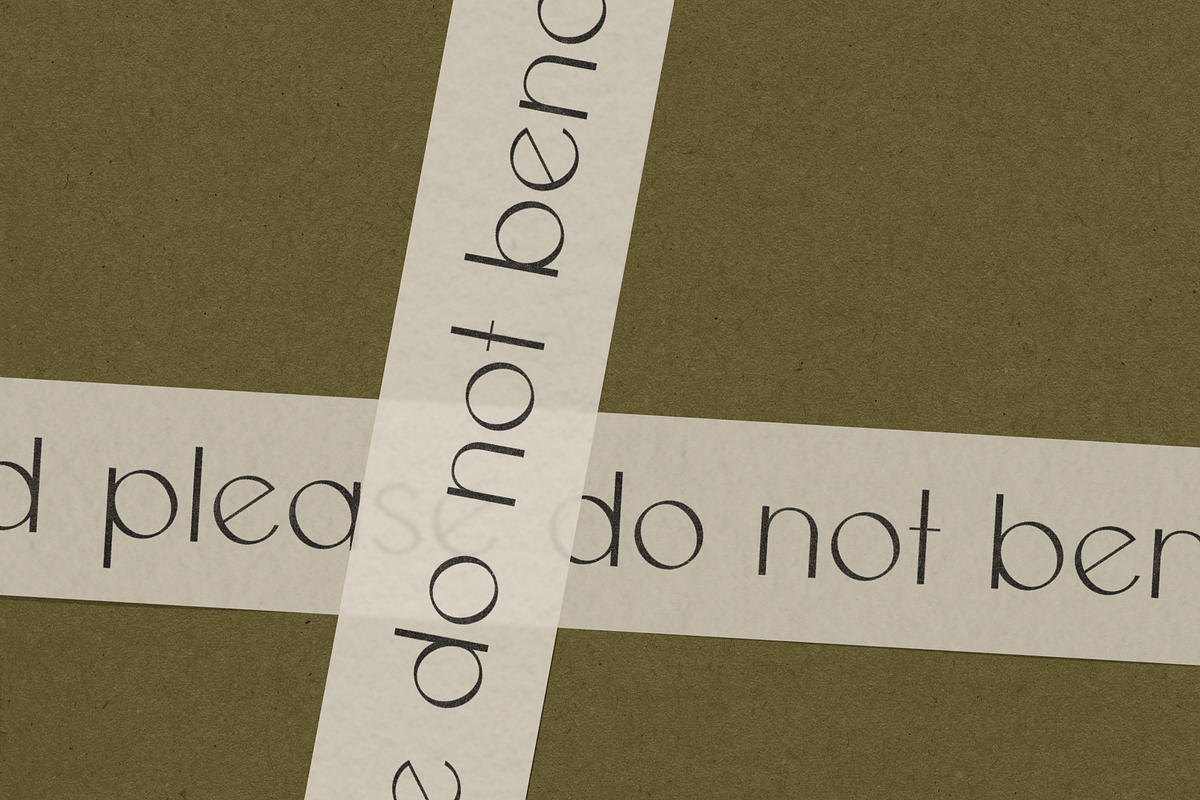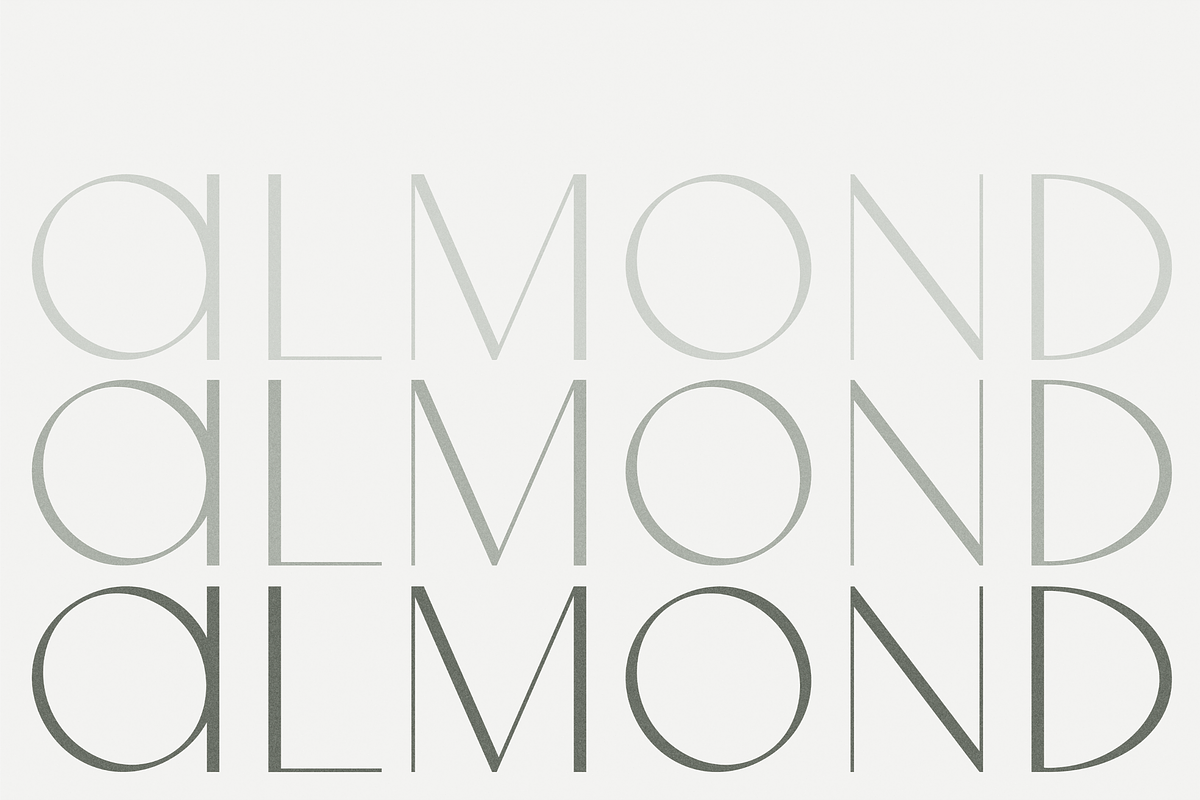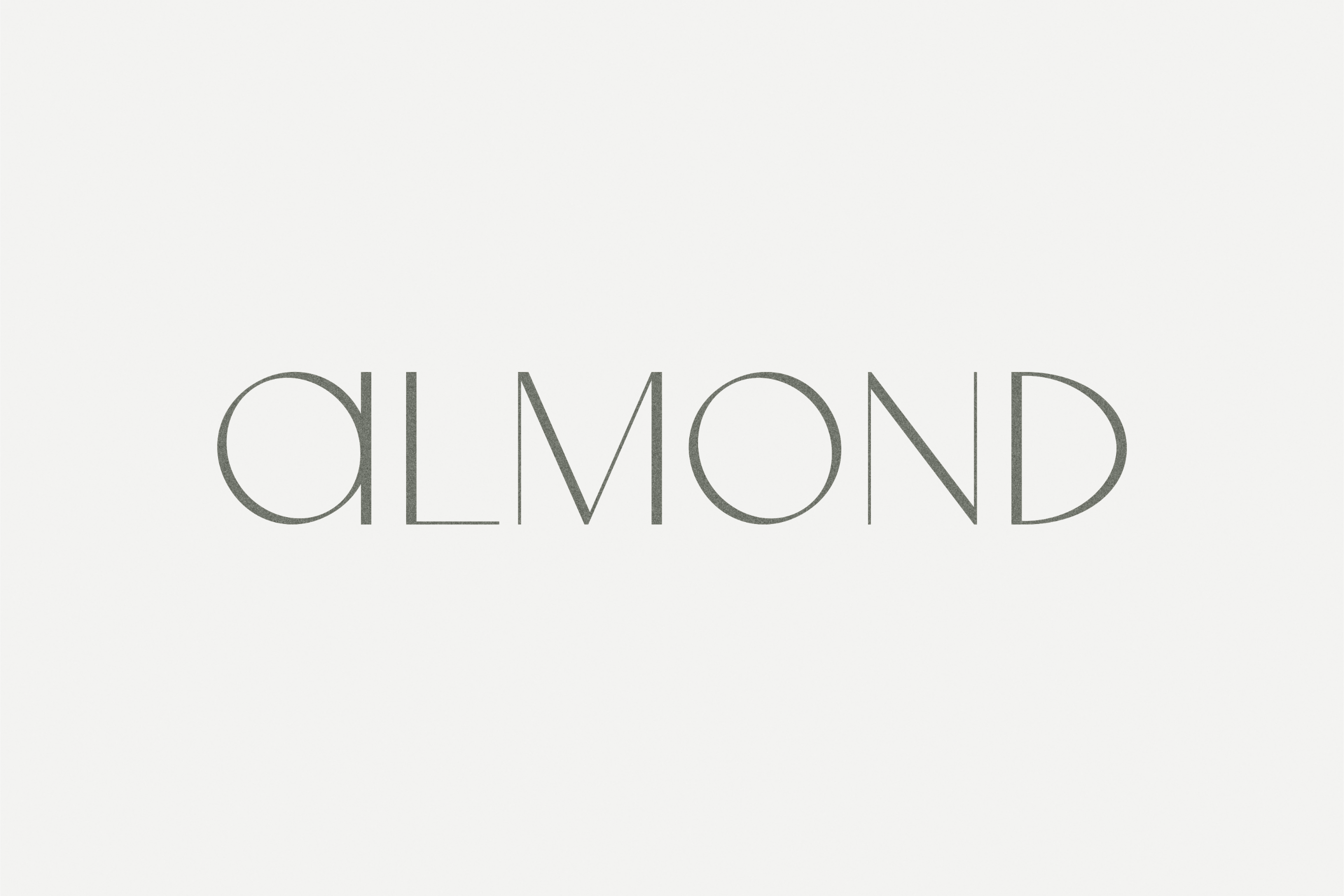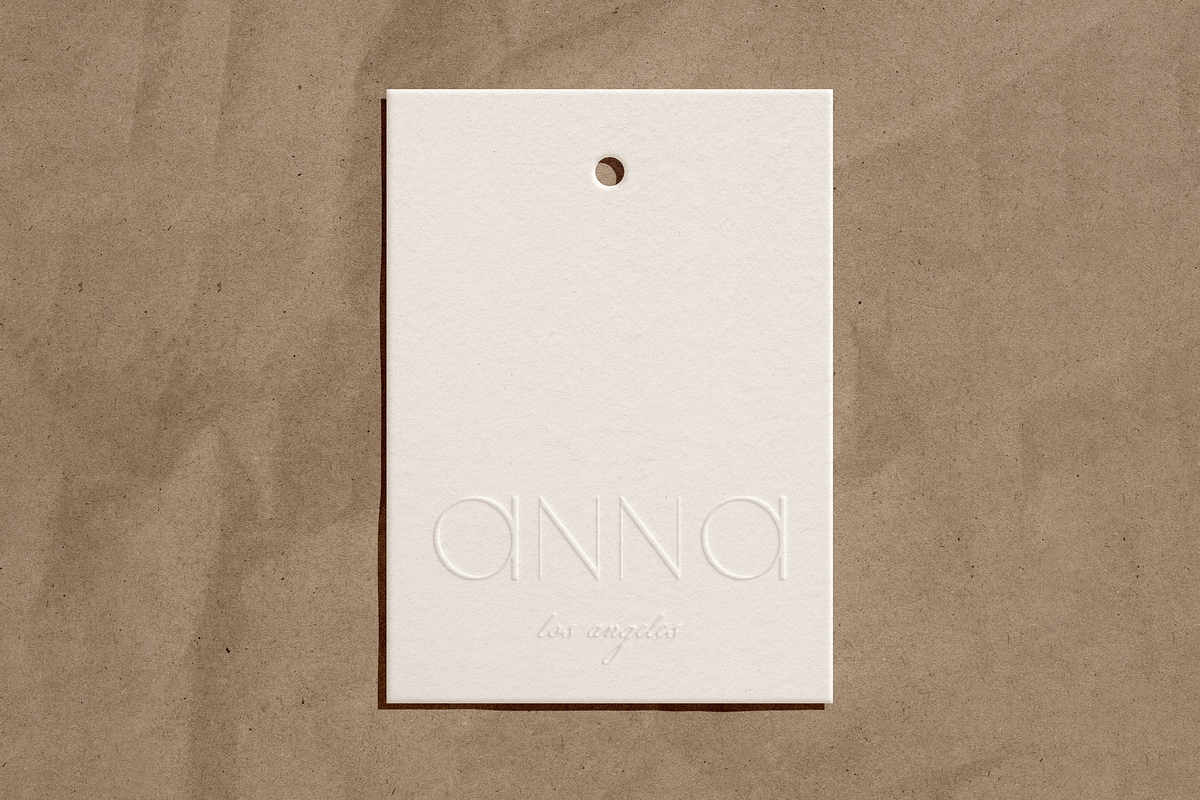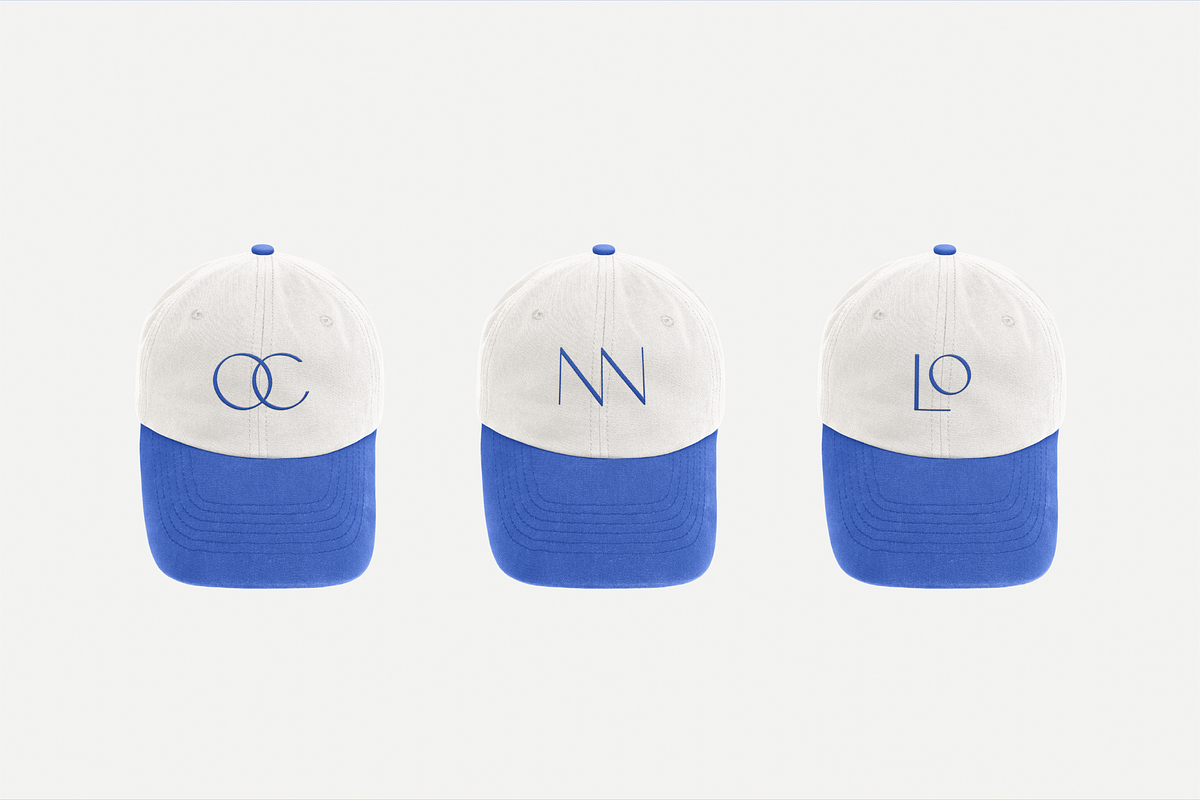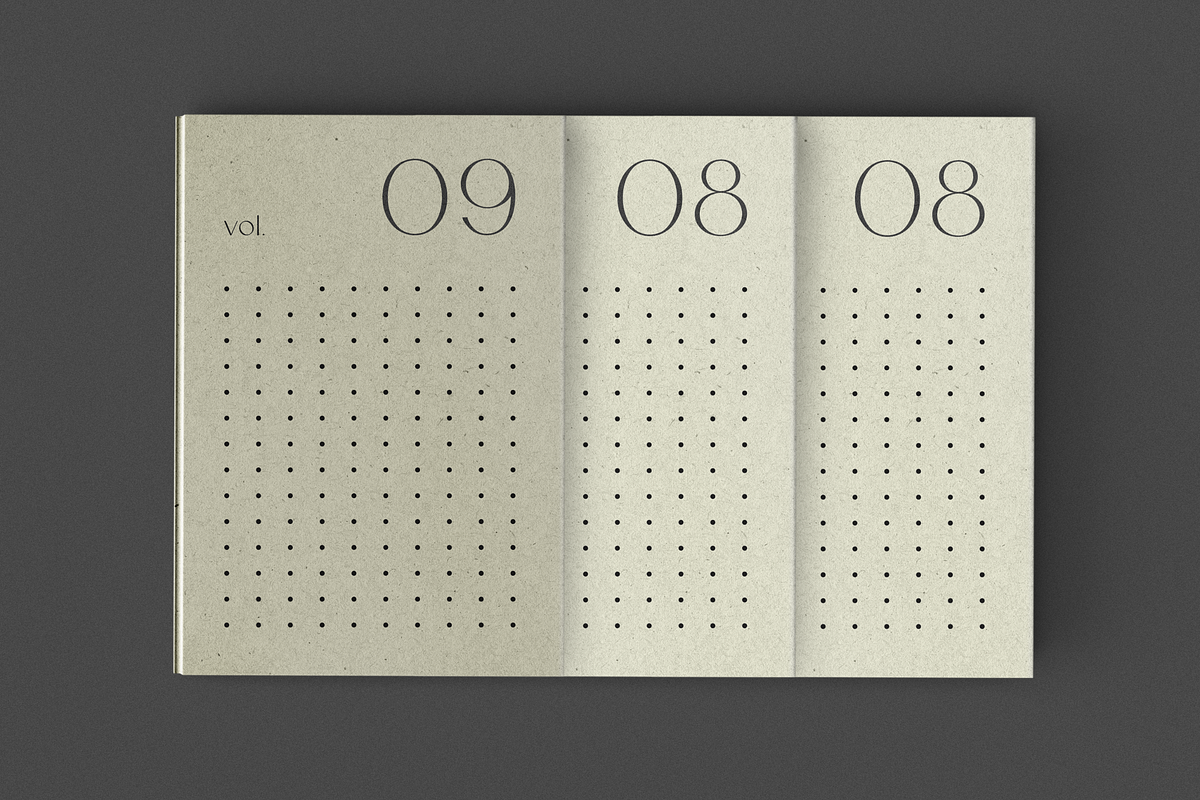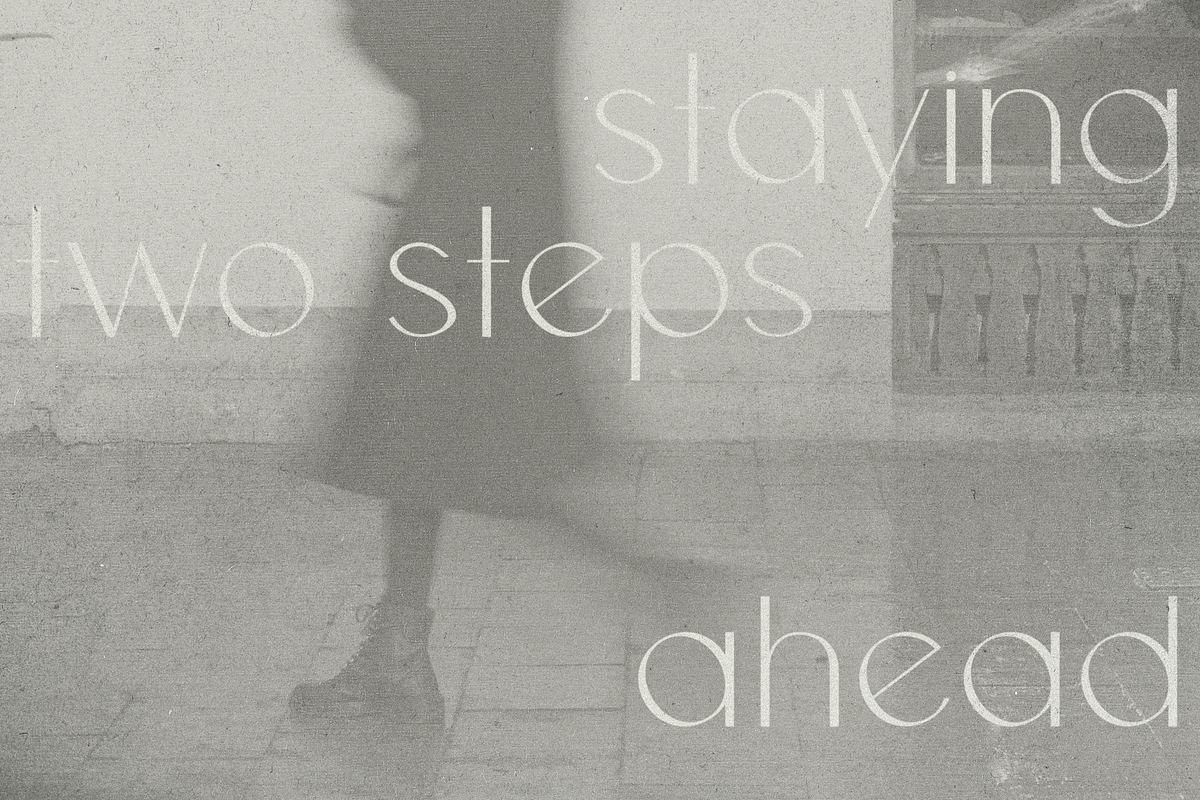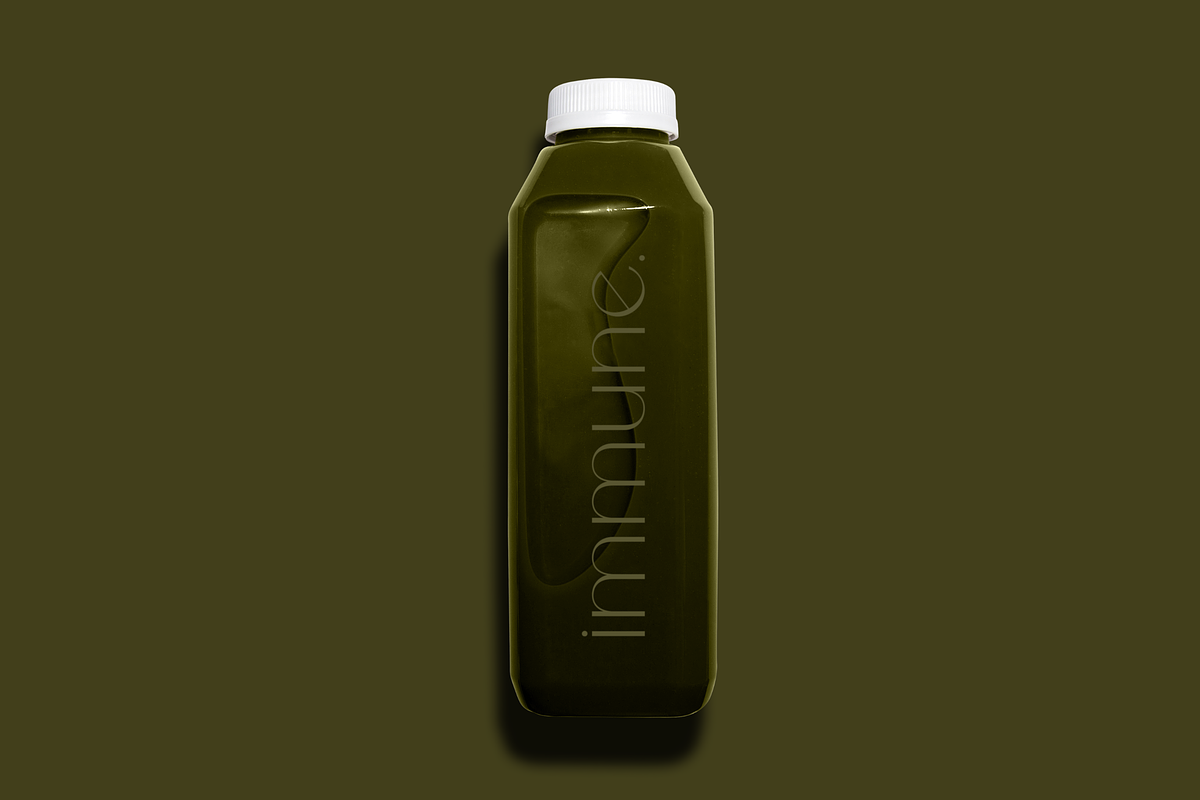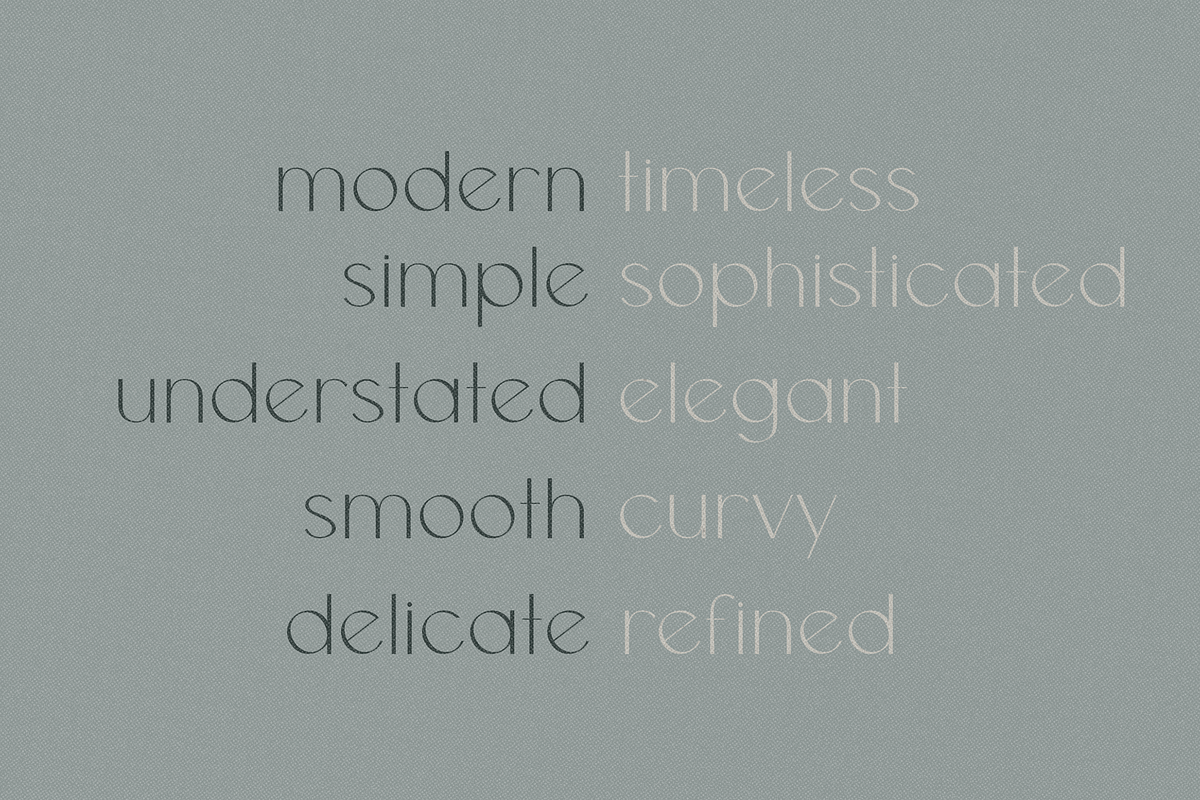
Almond | Sans Serif Font
She’s classy, she’s curvy, she’s buttery smooth. Her simplicity oozes sophistication. Almond is a sans serif display font with clean lines and scroll-stopping contrast strokes.
Perfect for logos and branding, monograms, posters, website headers and subheaders, invitations, editorial design, and more. Pairs beautifully with minimal san serifs and classic scripts.
- upper and lowercase characters, ligatures, alternates, numbers, and a range of punctuation and symbols